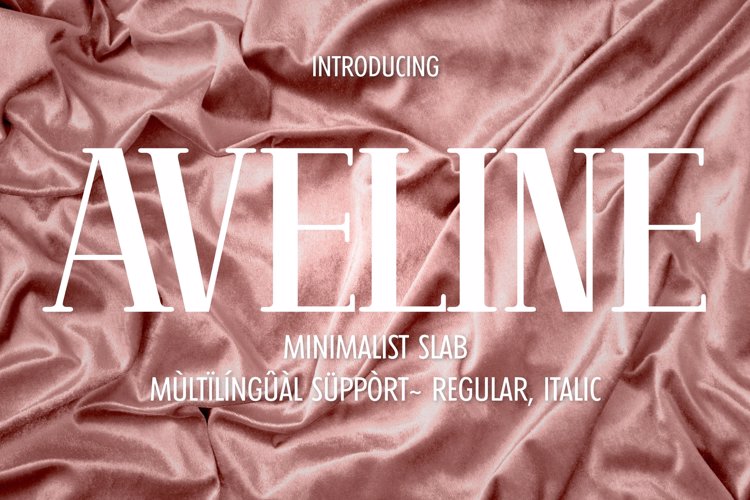
AVELINE Font
๐จ Font Name: Aveline by Minimalist Art Studio
๐จ Font Description: Aveline is a minimalist slab serif with delicate elegance and multilingual supportโperfect for luxury packaging, editorial branding, and poetic design.
โ Complete Latin set + multilingual diacritics
โ Alternates, stylistic sets & ligatures
โ Numbers, small caps, and extended punctuation
โ Bonus italics and family styles